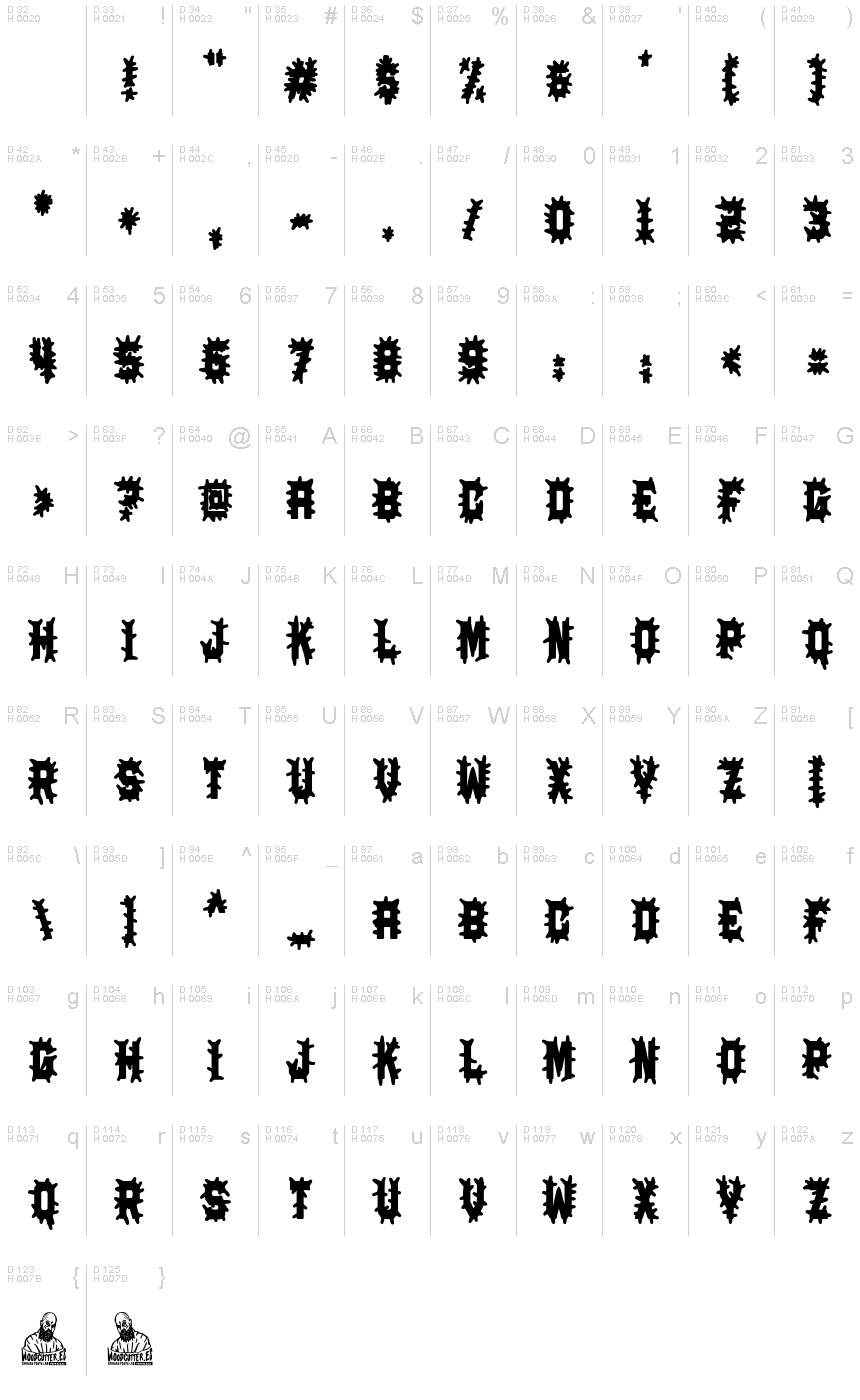
Danger Spring
Danger Spring font, designed by Woodcutter, emanates an edgy gothic vibe that captivates at first glance. Its bold characters feature striking, jagged edges and an expressive layout, creating a sense of dynamic movement. The font's robust presence is enhanced by its expanded form, making it ideal for projects that demand attention and impact.
This unique aesthetic lends itself beautifully to a variety of design contexts—be it punk-inspired graphic design, event posters, or merchandise aimed at a youthful audience seeking a touch of rebellion. With its powerful visual style, Danger Spring stands out as the perfect choice for designers looking to evoke energy and creativity in their work.